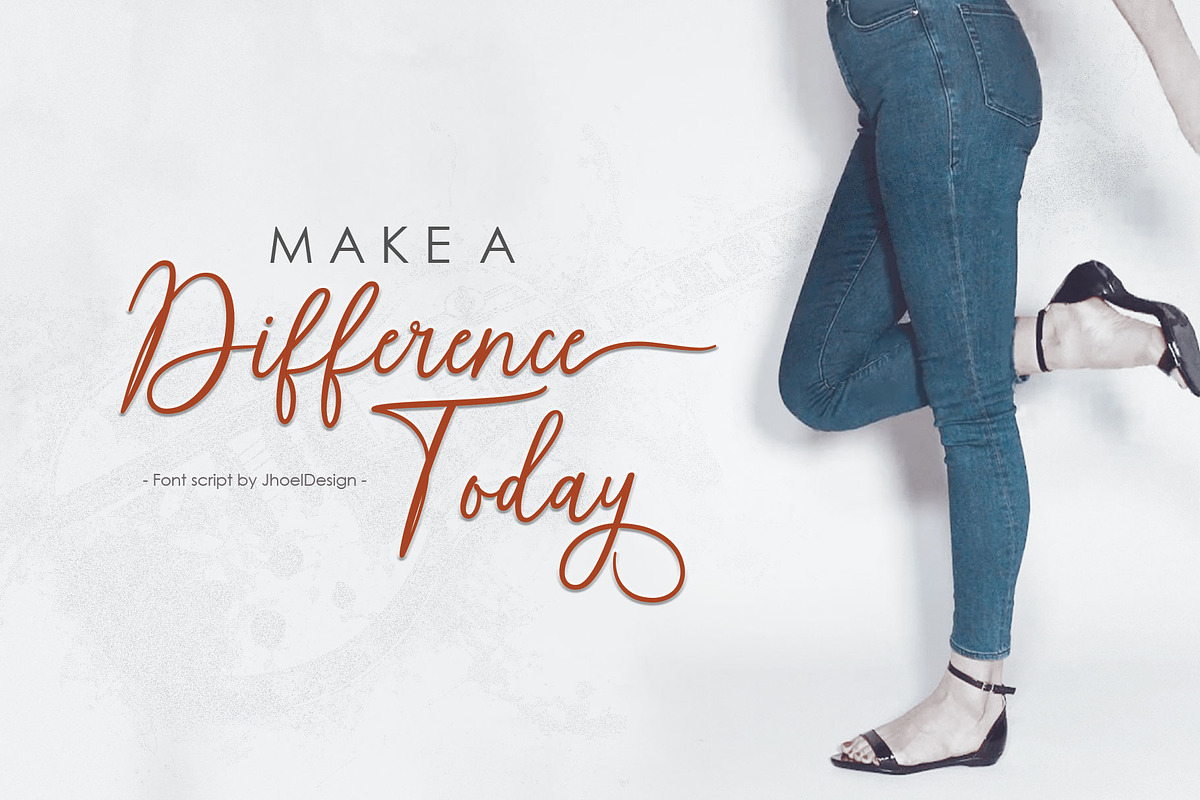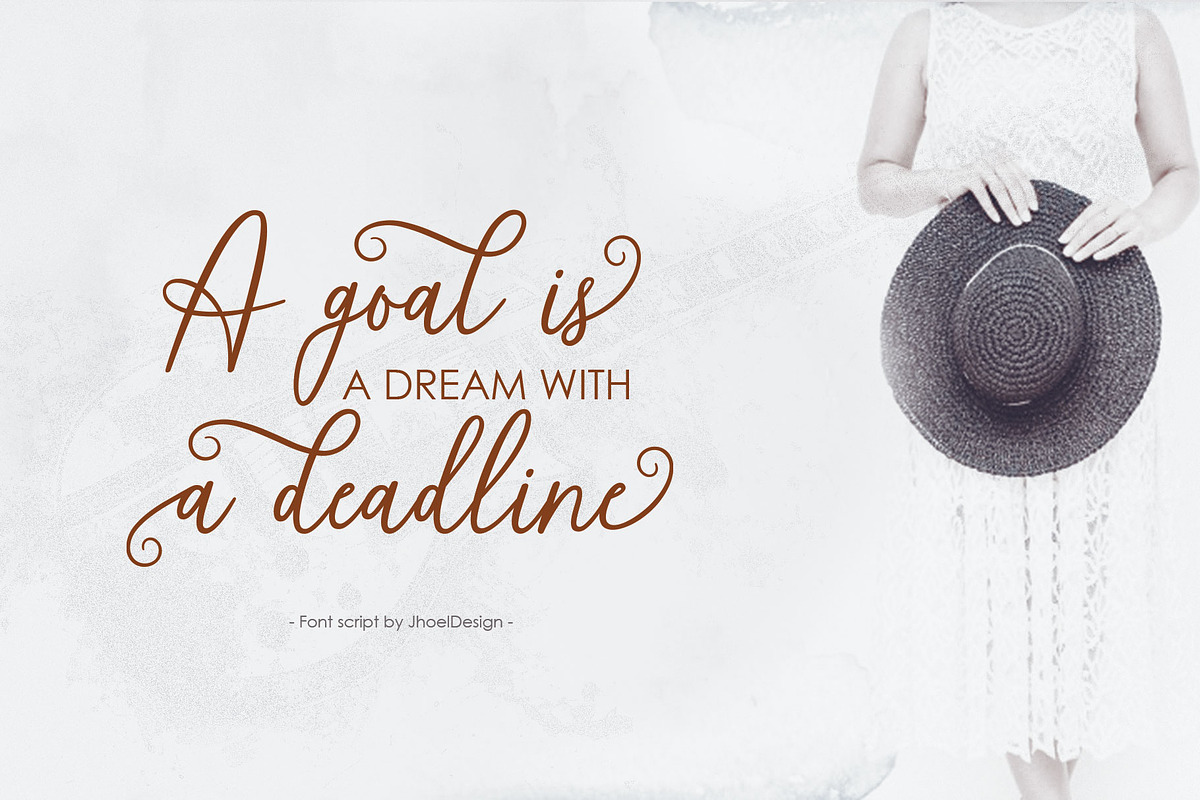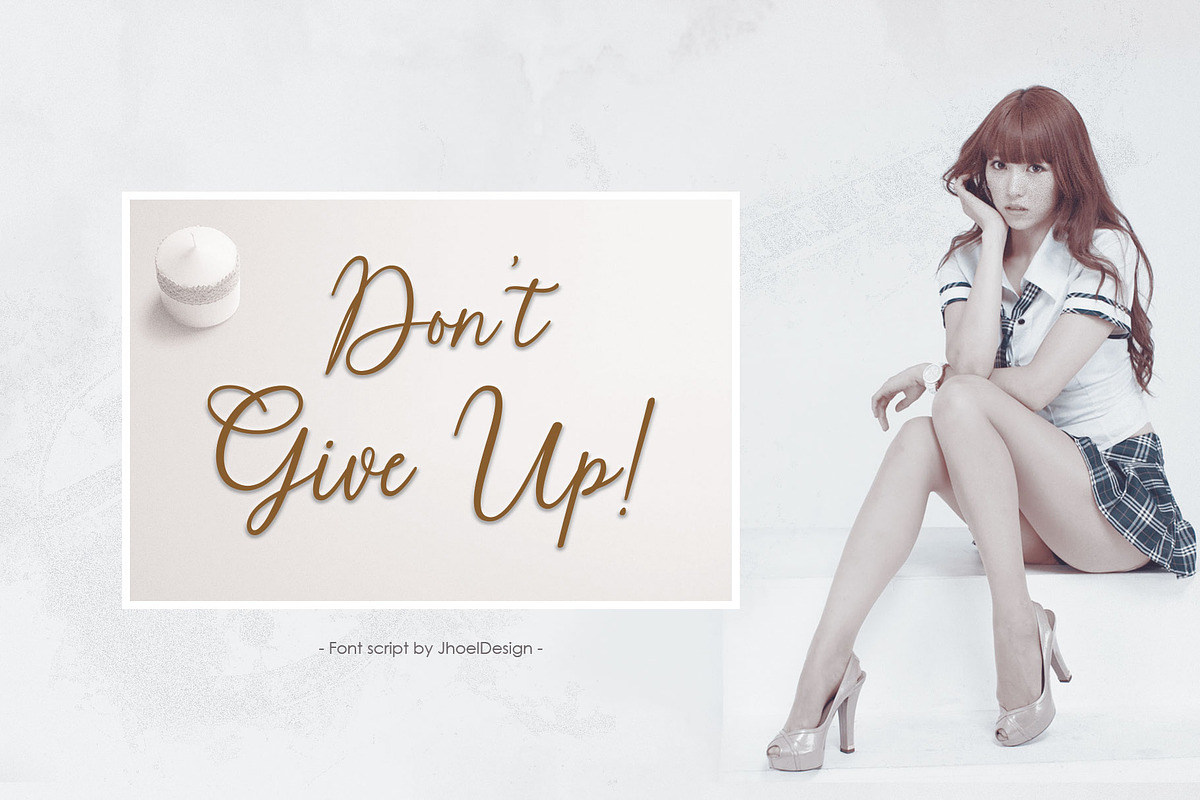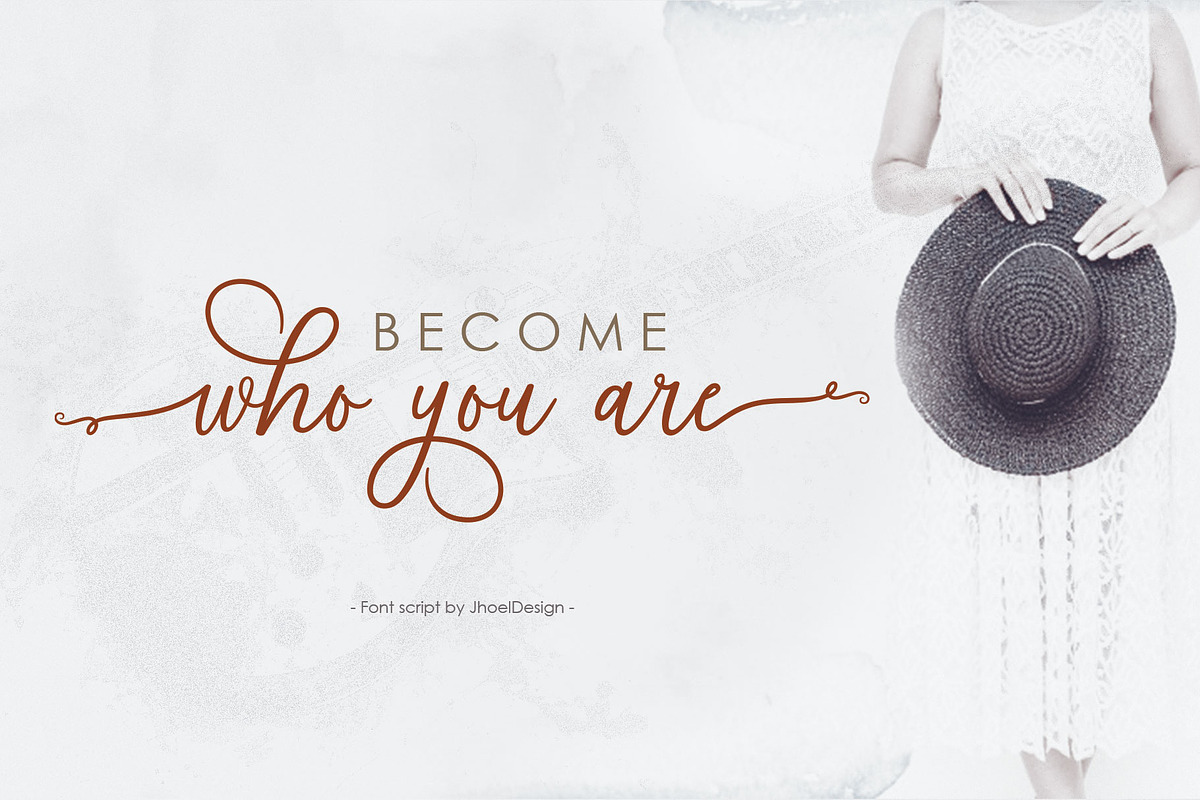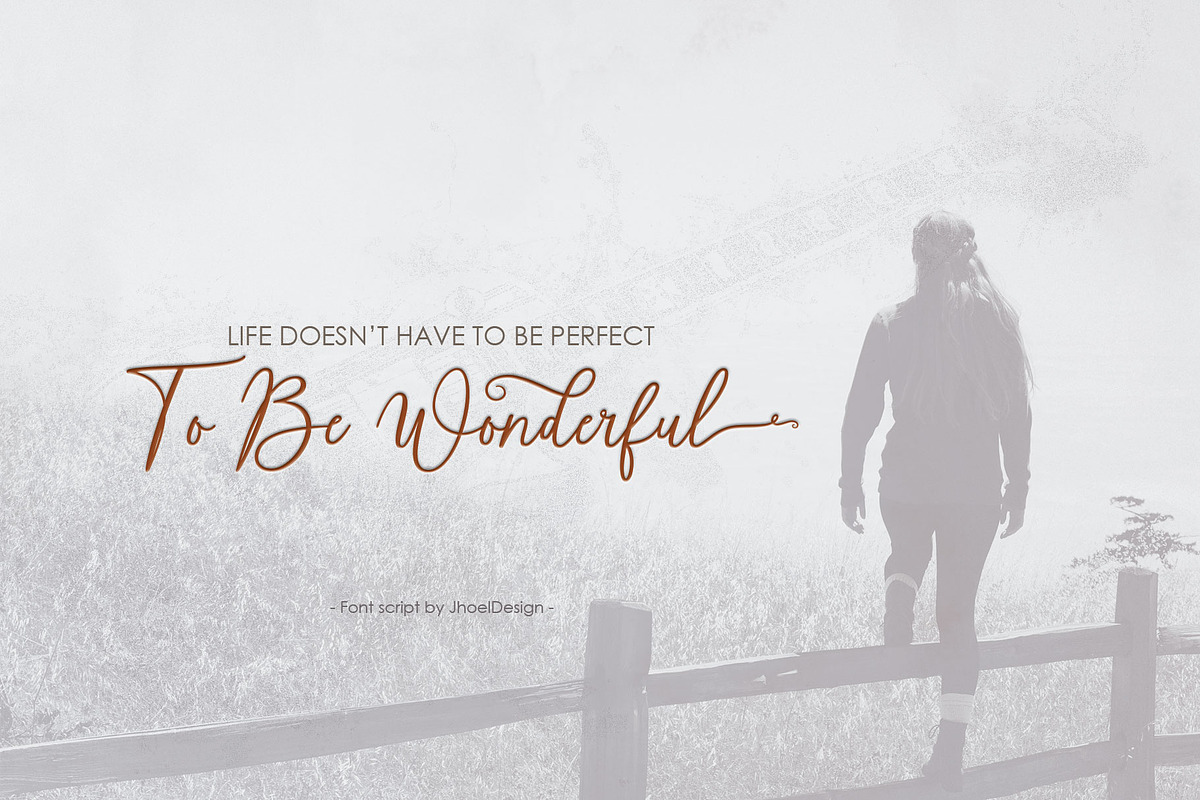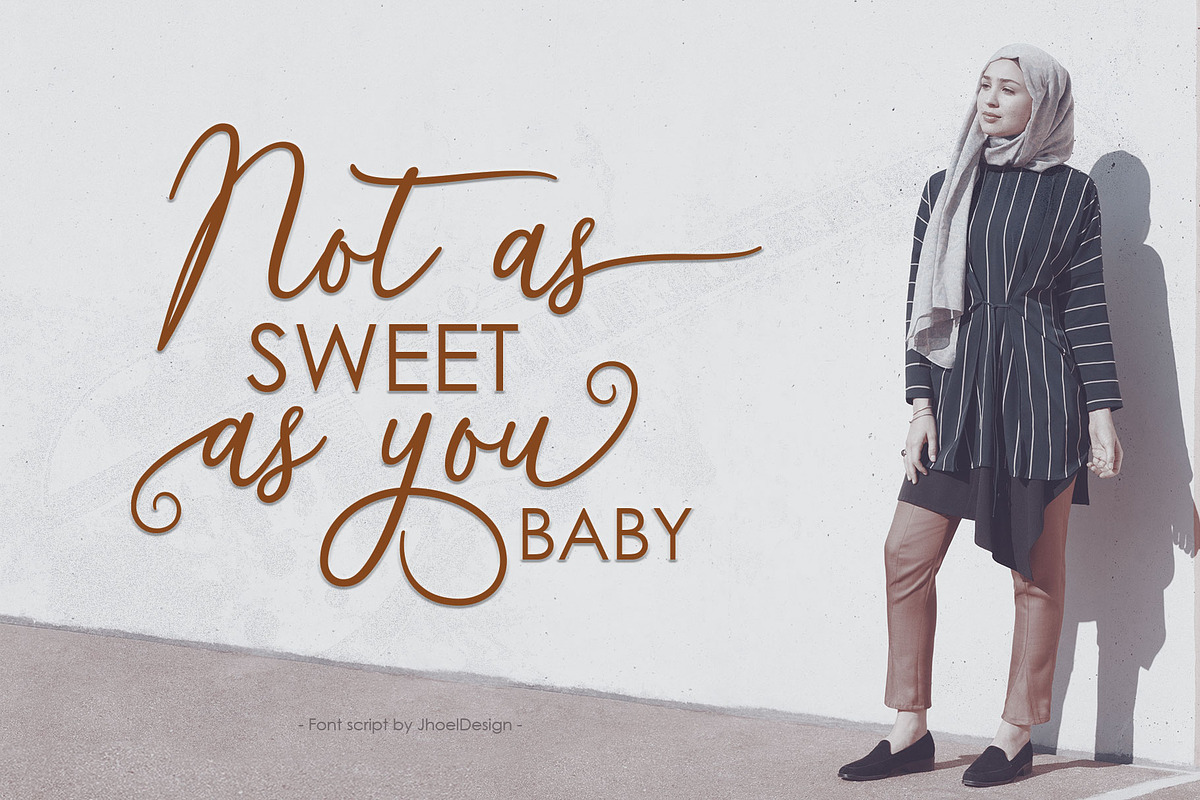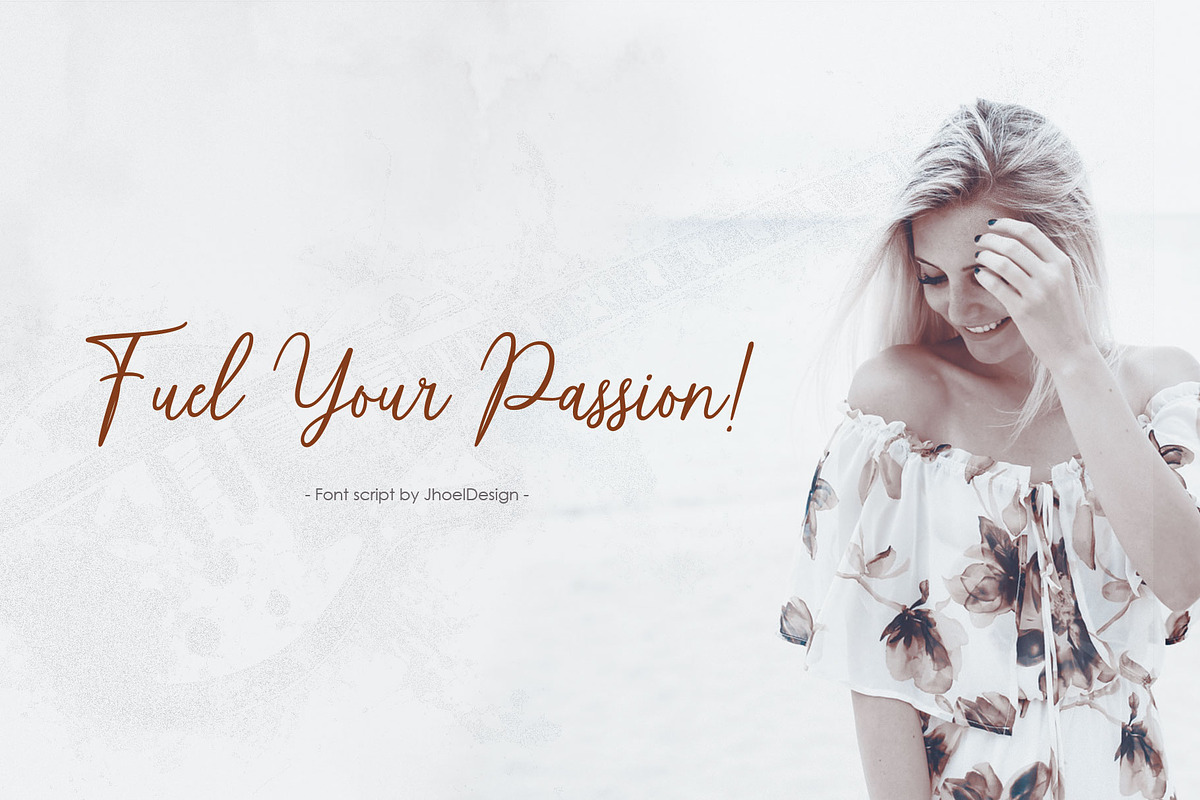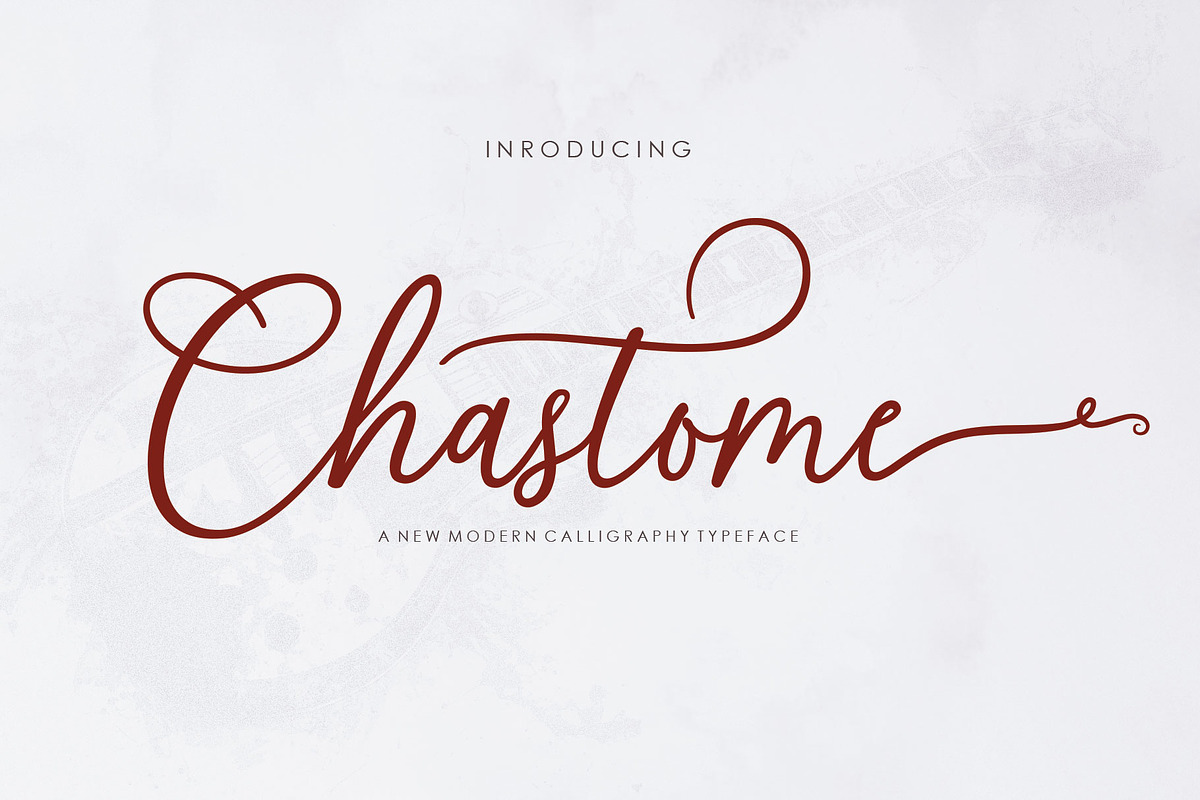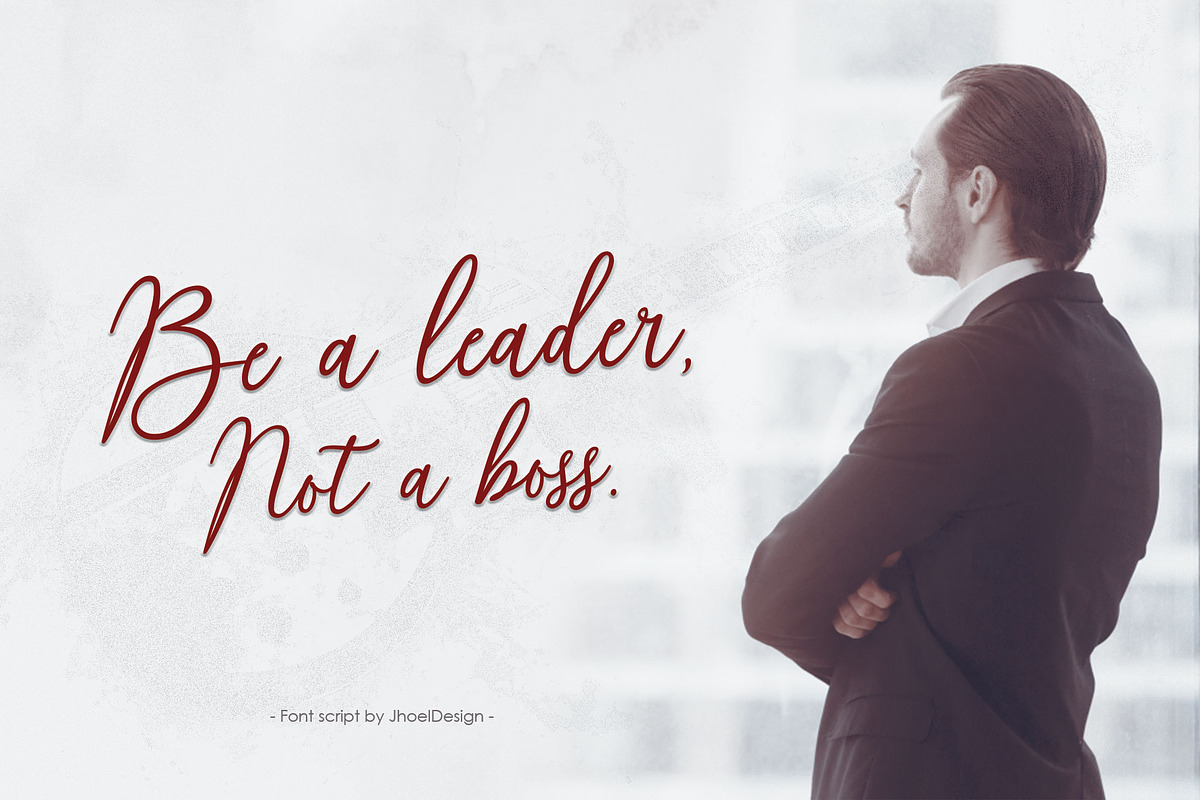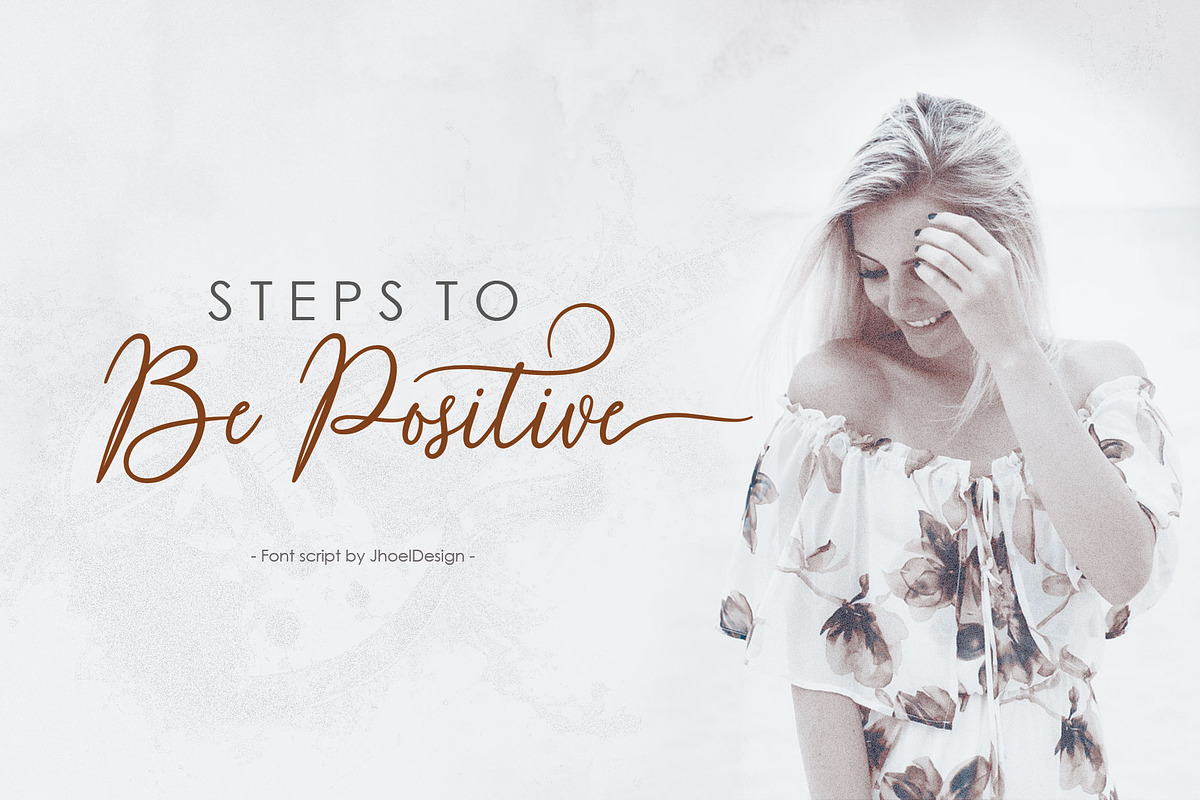
Chastome Script
Hi! Meet again the new Chastome Script font from us.
Chastome Script includes the full set of upper and lower case letters, multilingual symbols, numbers, and punctuation, standard ligatures, stylistic alternates.